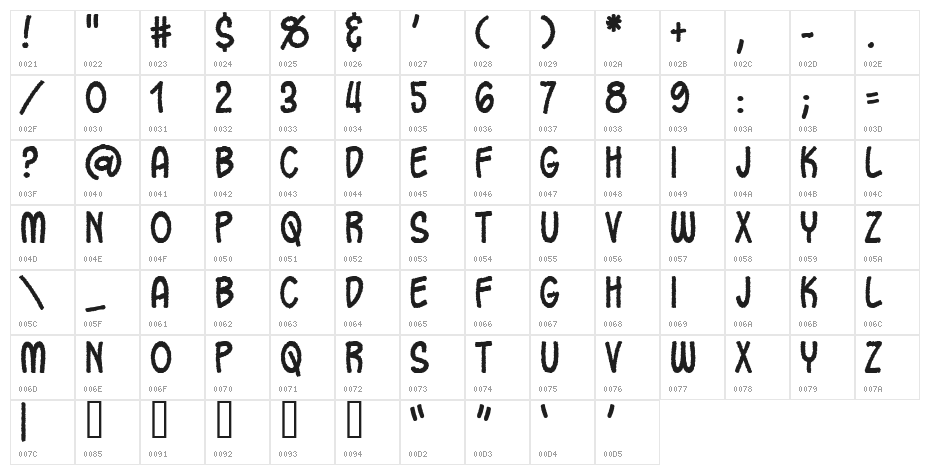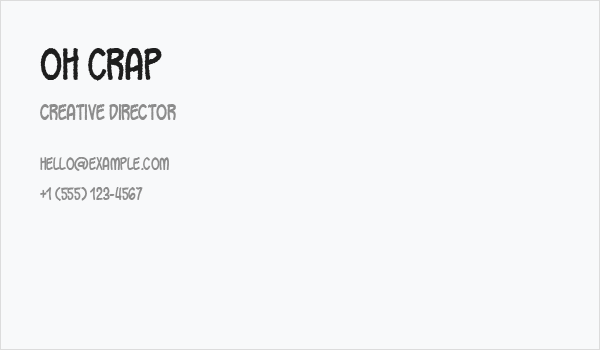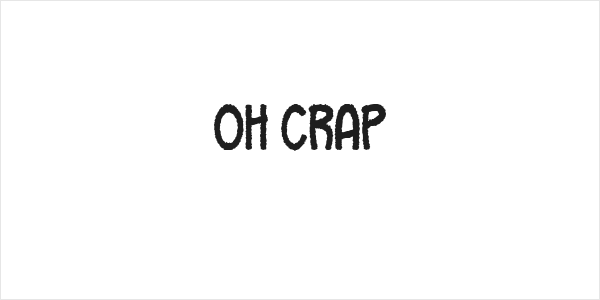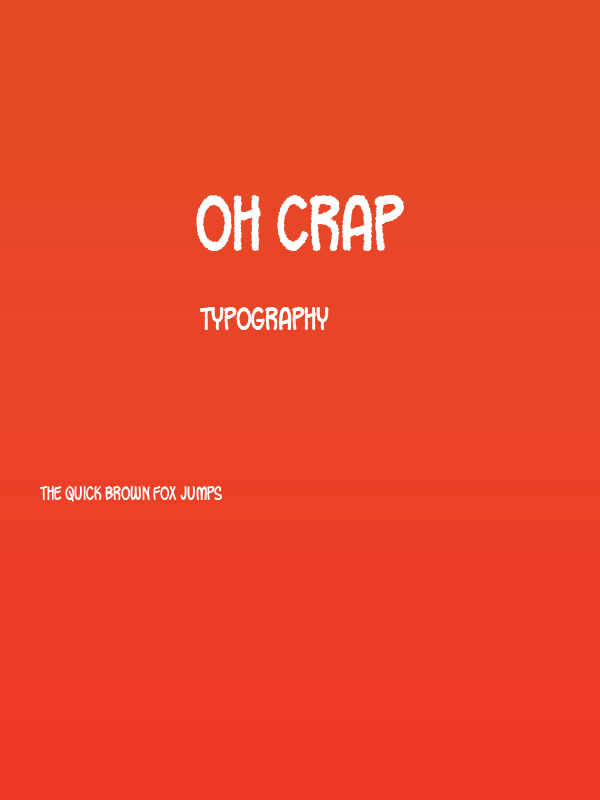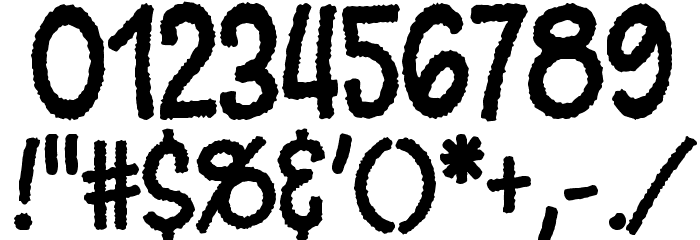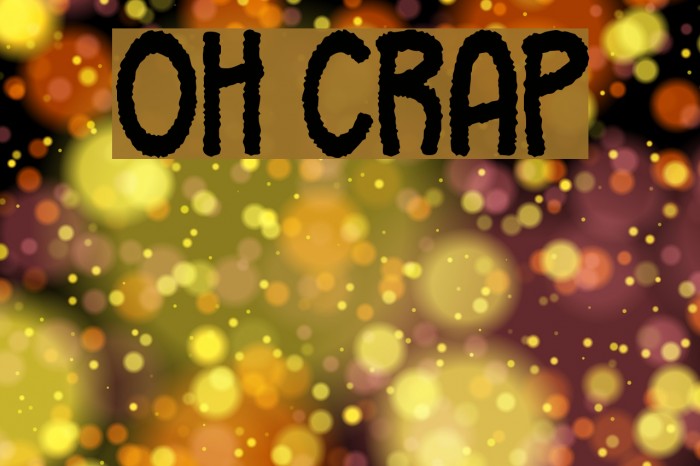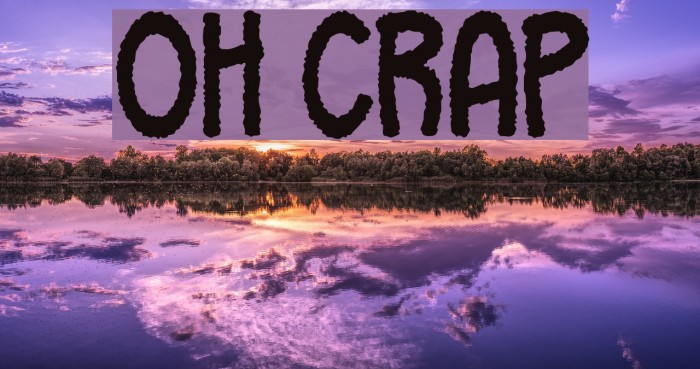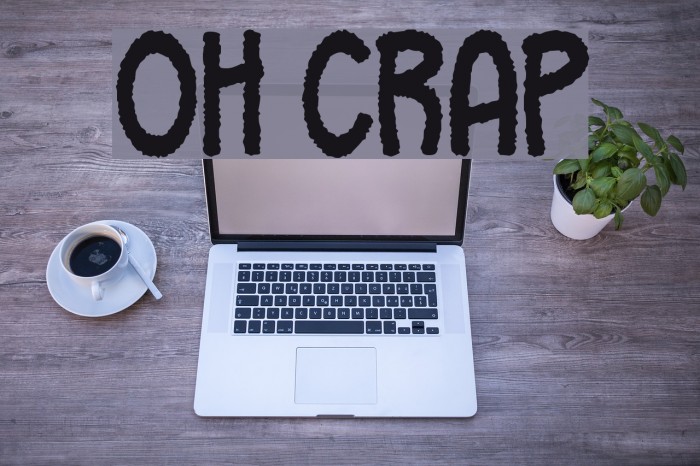
Oh Crap Font
Oh Crap Description
This font exhibits a playful and bold handwritten style, characterized by its thick, uneven strokes and slightly irregular shapes. The letters have a casual, informal appearance, reminiscent of chalk or crayon writing. The uppercase and lowercase letters maintain a consistent style, with rounded edges and a slightly compressed form. The numbers and special characters follow the same aesthetic, ensuring a cohesive look across all elements. This font's unique texture and lively personality make it stand out, offering a sense of fun and creativity.
| Proposed Projects | Ideal for children's book covers, playful branding, casual invitations, and creative posters. |